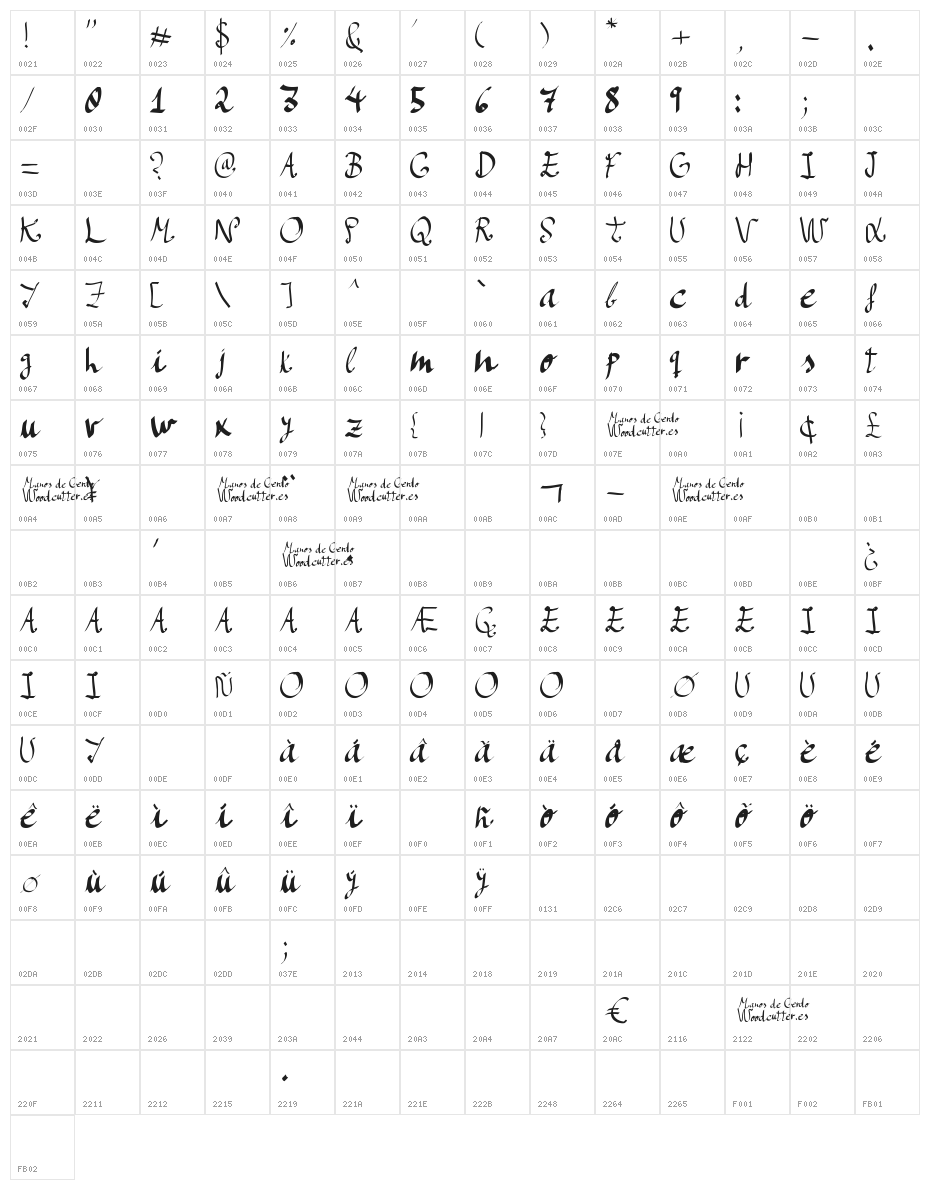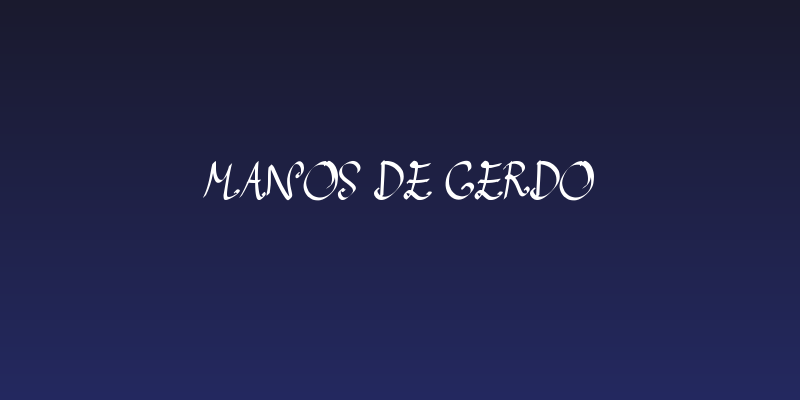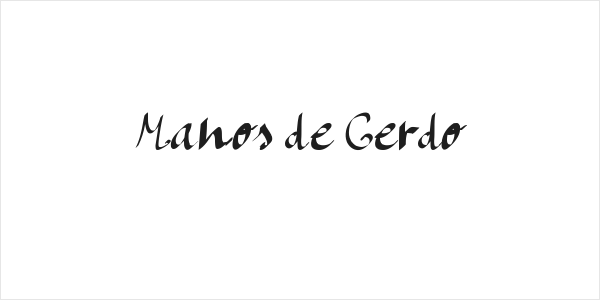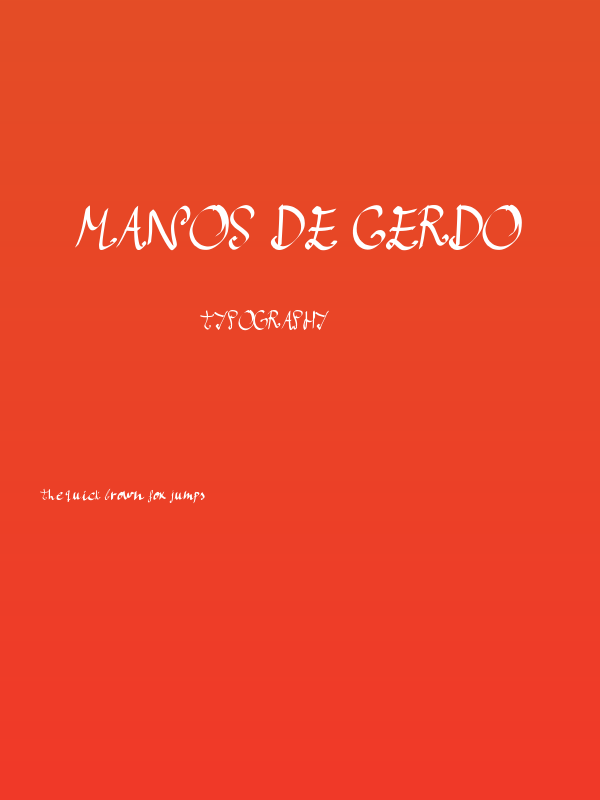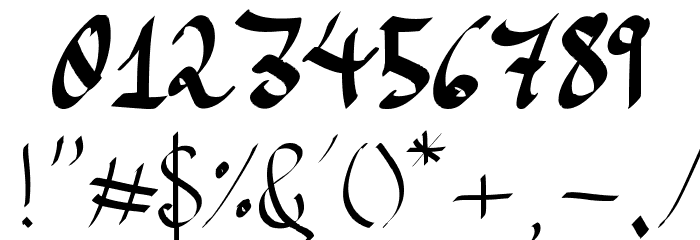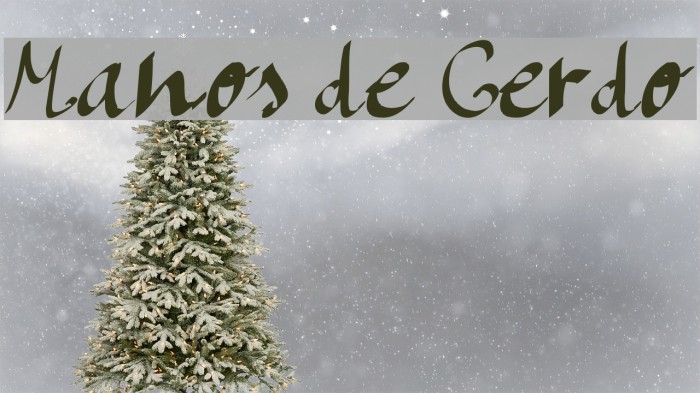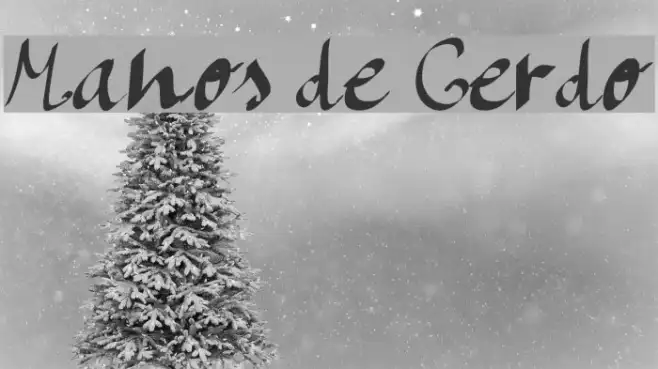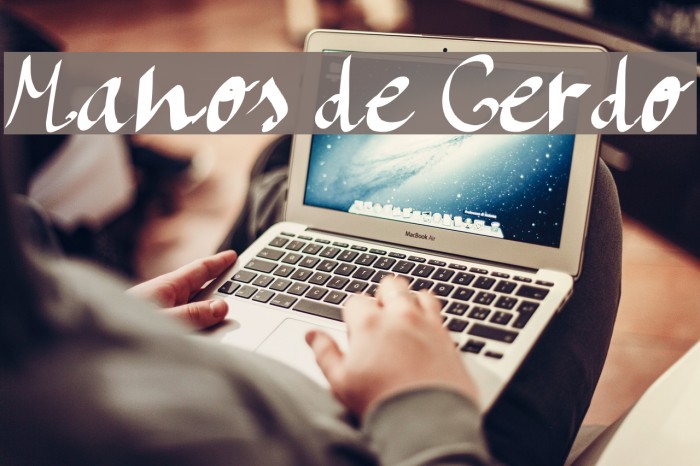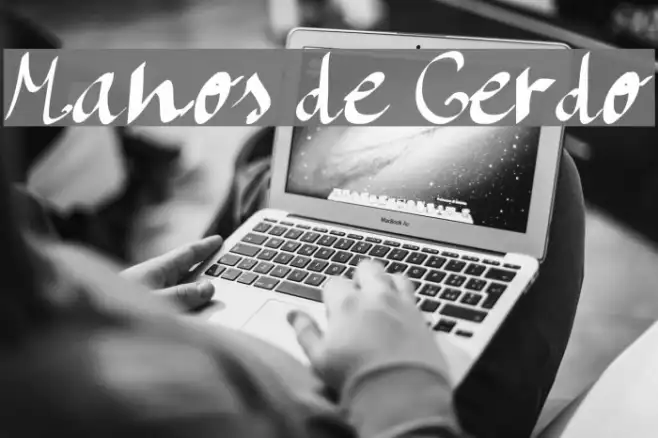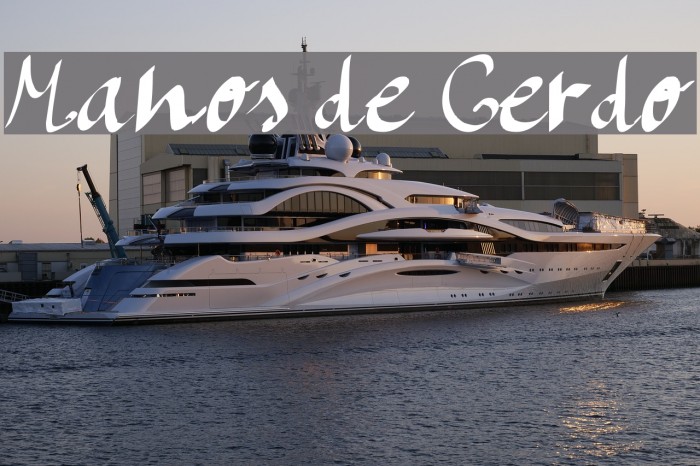
Manos de Cerdo Font
Manos de Cerdo Description
This font features a dynamic and expressive style, characterized by its fluid, cursive script that mimics the natural flow of handwriting. The uppercase letters exhibit a bold and artistic flair, with exaggerated curves and loops that add a sense of movement and elegance. The lowercase letters maintain this fluidity, with some characters featuring unique, playful twists. The numbers are equally bold and stylized, ensuring consistency across the font. Special characters are creatively integrated, maintaining the overall aesthetic. This font's distinctive style makes it suitable for creative and artistic projects, where a touch of personality and flair is desired.